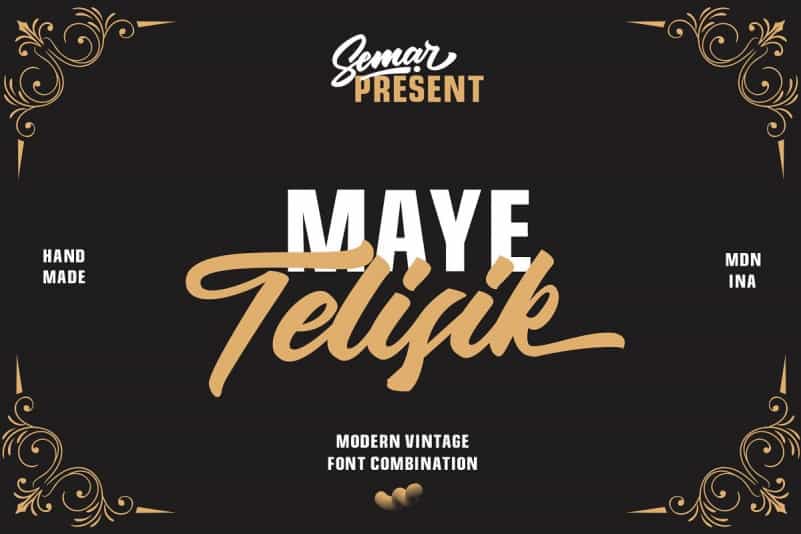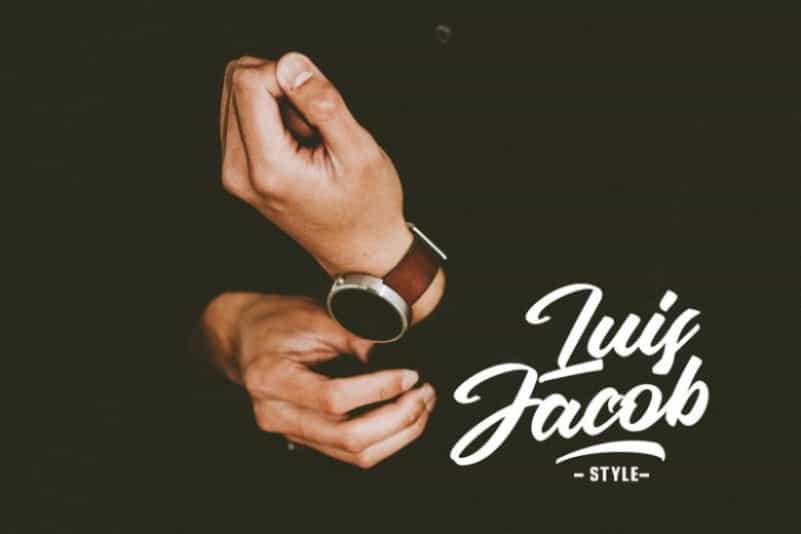
Telisik Font is a calligraphic script typeface that is clean, stylish and has a script hand lettering design. Perfect for logos, handwriting quotes, product packaging, headers, posters, merchandise, social media Books / Cover titles, brand promotions, special occasions, etc.